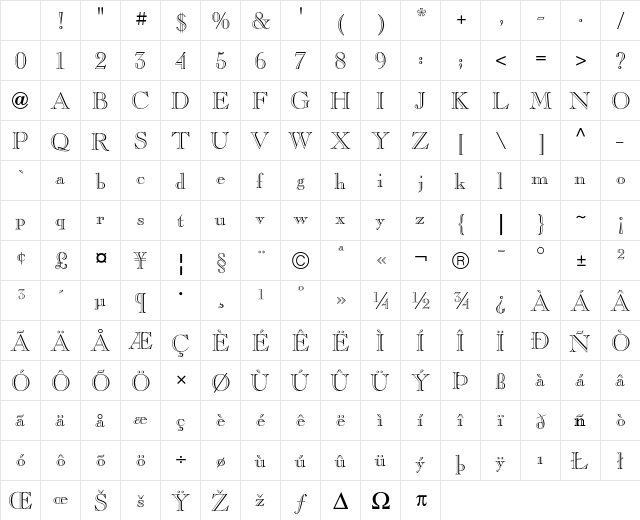
Complete CaslonICG OpenFace glyph index. Displaying only characters natively supported by CaslonICG OpenFace font.
CaslonICG is a composed and adaptable typeface that performs quietly and consistently across a wide range of design contexts.